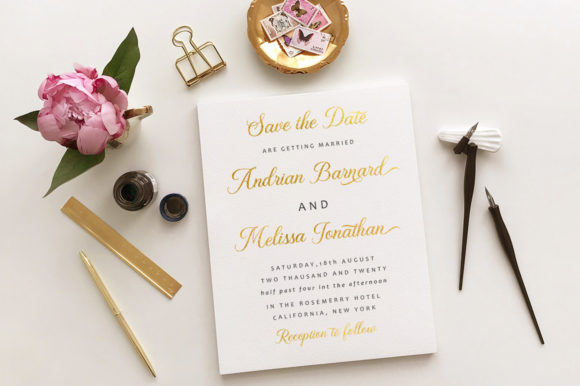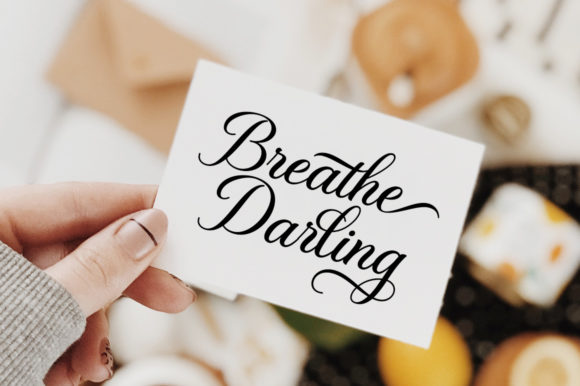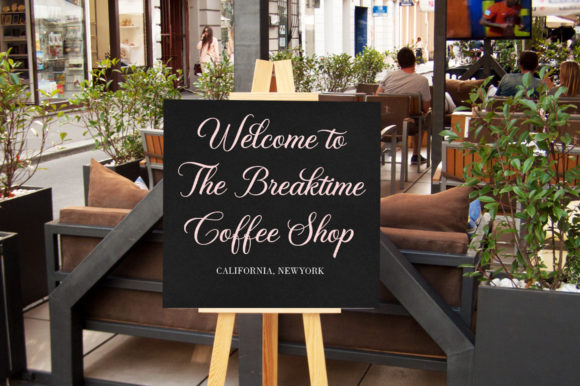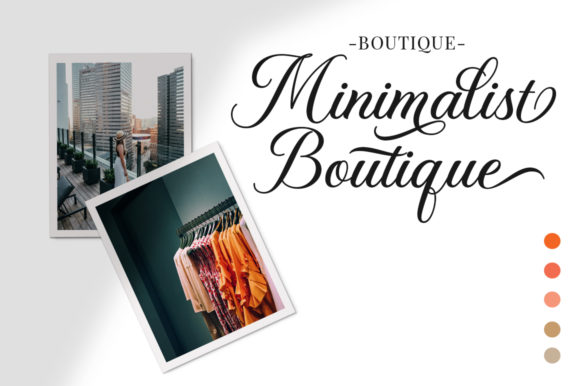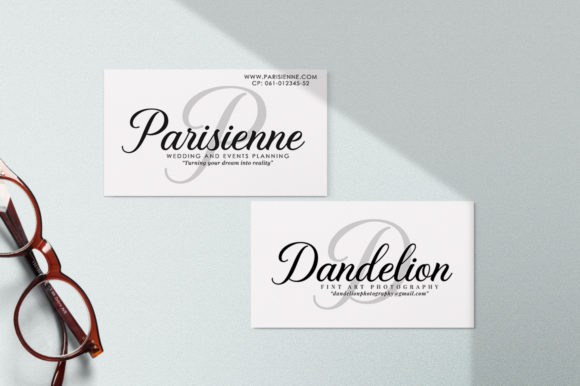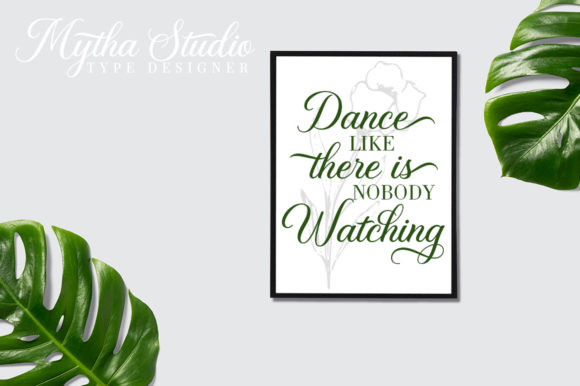
Bela Yasmine Font: The Ultimate Handwritten Script for Creative Projects
Are you tired of using the same old fonts for your creative projects? Look no further than the Bela Yasmine font, a cute and casual handwritten script that is sure to add a touch of personality to any design. With its incredibly friendly feel, gorgeous swashes, and ligatures, Bela Yasmine is the perfect choice for designers and crafters looking to turn their ideas into true works of art.
The Characteristics of Bela Yasmine Font
Bela Yasmine is a script font that boasts a unique and charming aesthetic. Its handwritten style gives it a personal and approachable feel, making it perfect for designs that require a touch of warmth and friendliness. The font features beautiful swashes and ligatures that add a level of sophistication and elegance to any design. Whether you’re creating a logo, social media graphics, or a DIY project, Bela Yasmine is sure to make your design stand out.
What Makes Bela Yasmine So Versatile?
One of the things that sets Bela Yasmine apart from other fonts is its versatility. The font’s script style and range of swashes and ligatures make it suitable for a wide range of creative projects. Here are just a few examples of how you can use Bela Yasmine:
• Instagram Fonts: Bela Yasmine is perfect for creating eye-catching Instagram graphics, quotes, and stories. Its friendly and approachable feel makes it ideal for engaging with your audience and adding a personal touch to your social media presence.
• Calligraphy Scripts: If you’re looking for a font that mimics the look of calligraphy, Bela Yasmine is an excellent choice. Its swashes and ligatures give it a elegant and sophisticated feel that’s perfect for DIY projects, such as wedding invitations, greeting cards, and more.
• Branding and Logo Design: Bela Yasmine’s unique and charming aesthetic makes it a great choice for branding and logo design. Its friendly feel and elegant swashes and ligatures make it perfect for creating a memorable and recognizable brand identity.
Tips for Using Bela Yasmine Font
To get the most out of Bela Yasmine, here are a few tips to keep in mind:
• Experiment with Swashes and Ligatures: One of the best things about Bela Yasmine is its range of swashes and ligatures. Experiment with different combinations to add a unique touch to your design.
• Pair it with Other Fonts: Bela Yasmine pairs well with a range of other fonts, from sans-serif fonts like Arial and Helvetica to serif fonts like Georgia and Times New Roman. Experiment with different pairings to find the perfect combination for your design.
• Use it for Headings and Titles: Bela Yasmine is perfect for headings and titles, where its elegant swashes and ligatures can really shine. Use it to add a touch of personality to your design and draw attention to important information.
In conclusion, Bela Yasmine is a versatile and charming handwritten font that is perfect for designers and crafters looking to add a touch of personality to their creative projects. With its incredibly friendly feel, gorgeous swashes, and ligatures, Bela Yasmine is sure to turn any design into a true work of art. Whether you’re creating Instagram graphics, calligraphy scripts, or branding and logo designs, Bela Yasmine is an excellent choice. So why not give it a try and see the difference it can make in your designs?